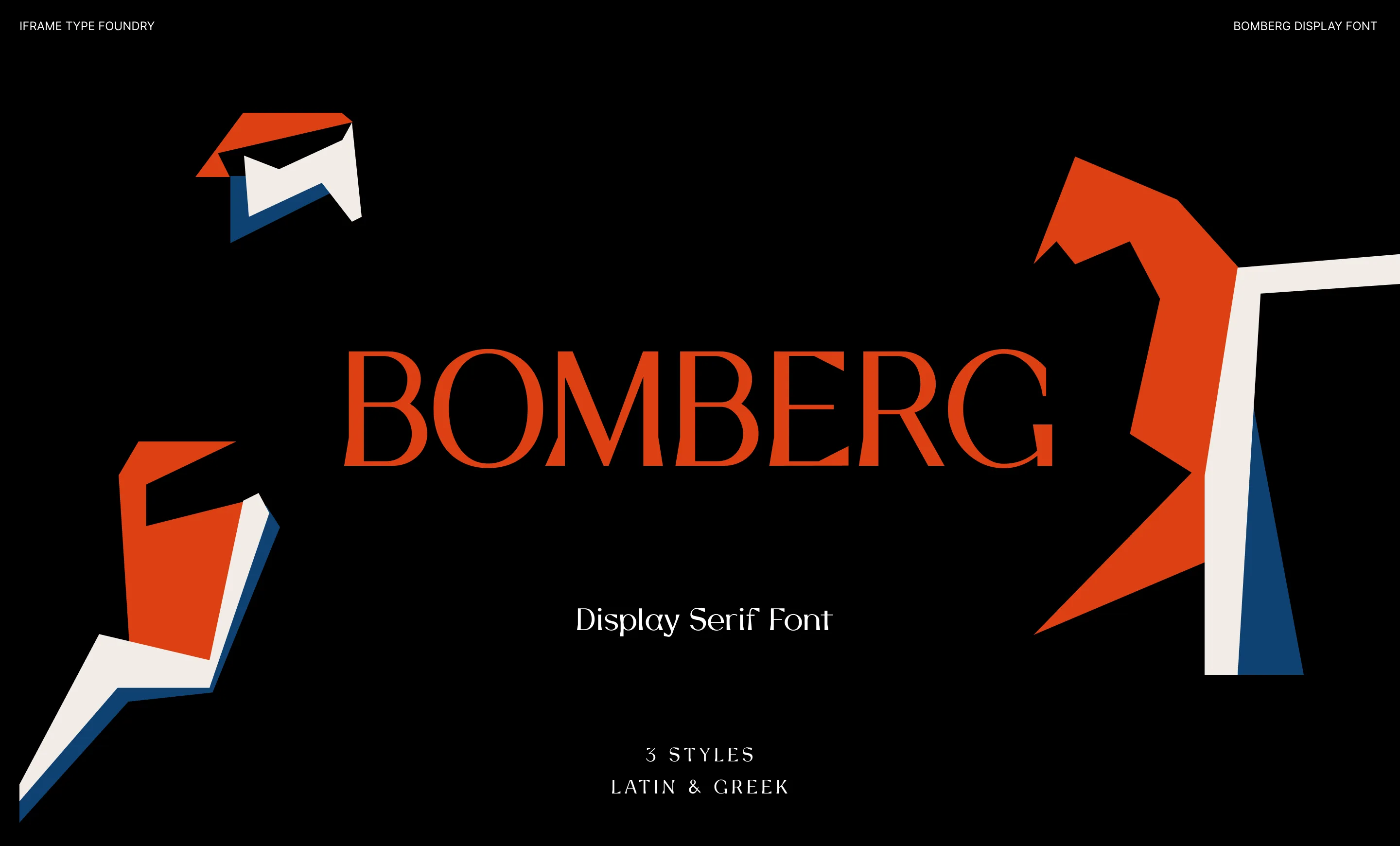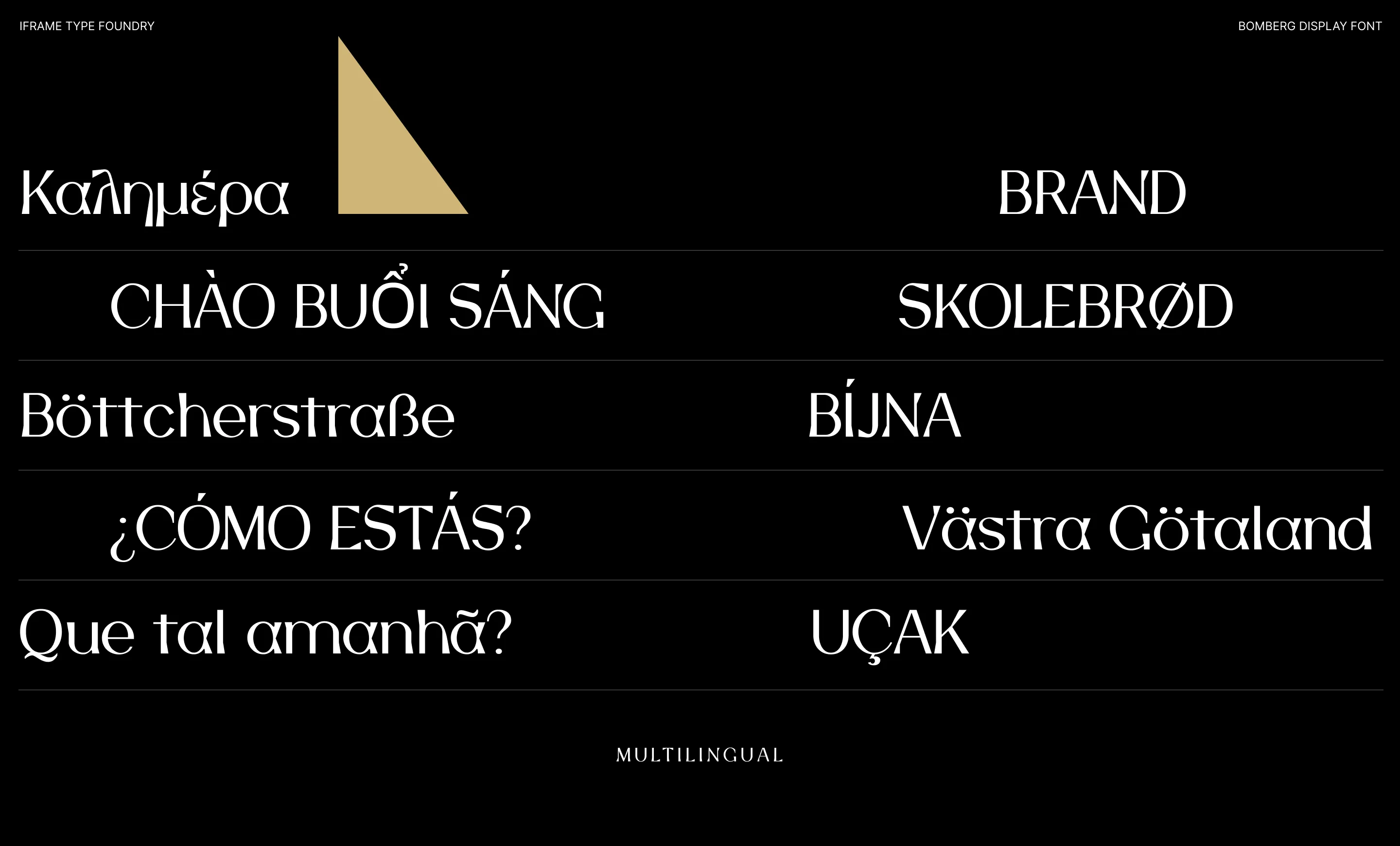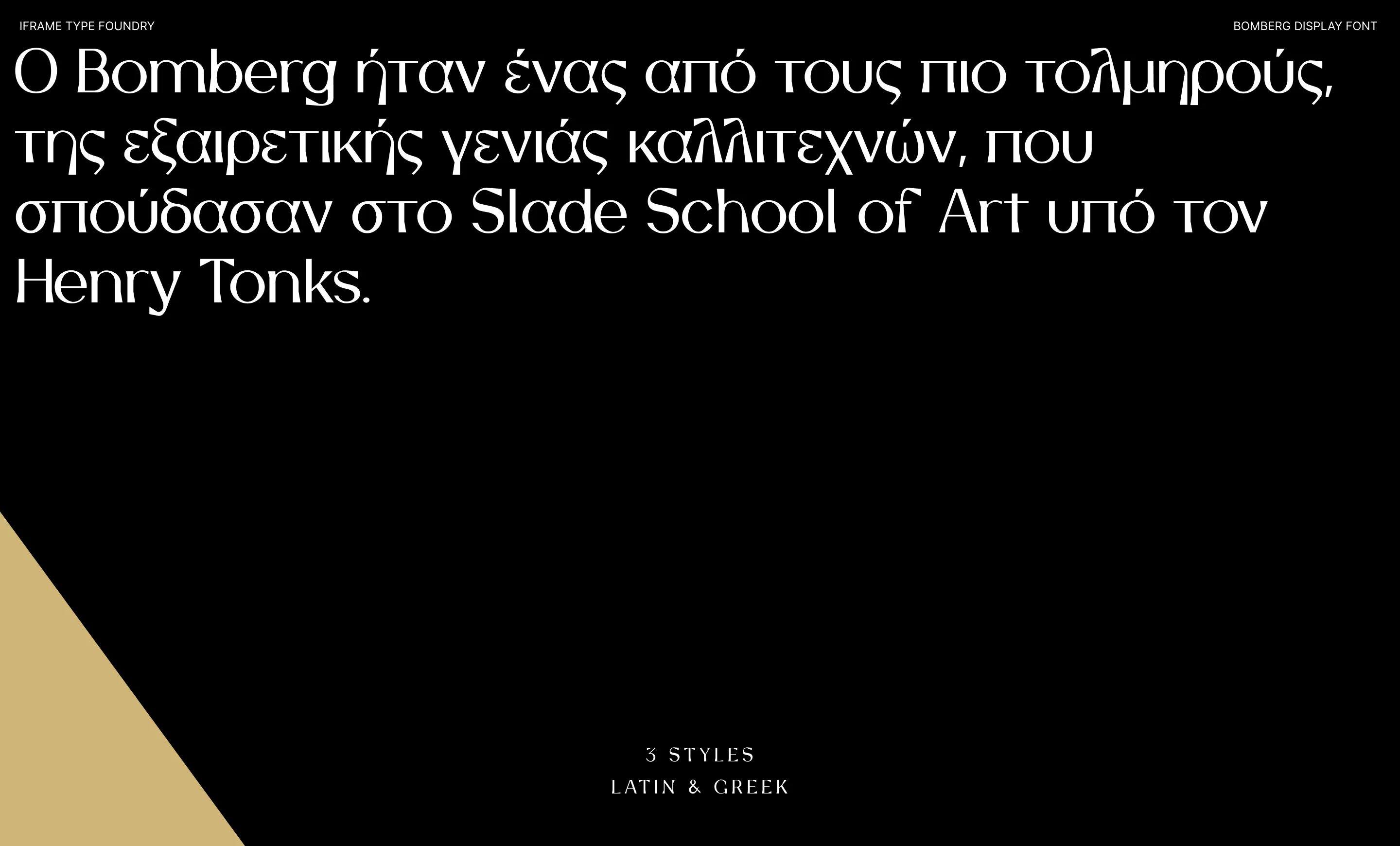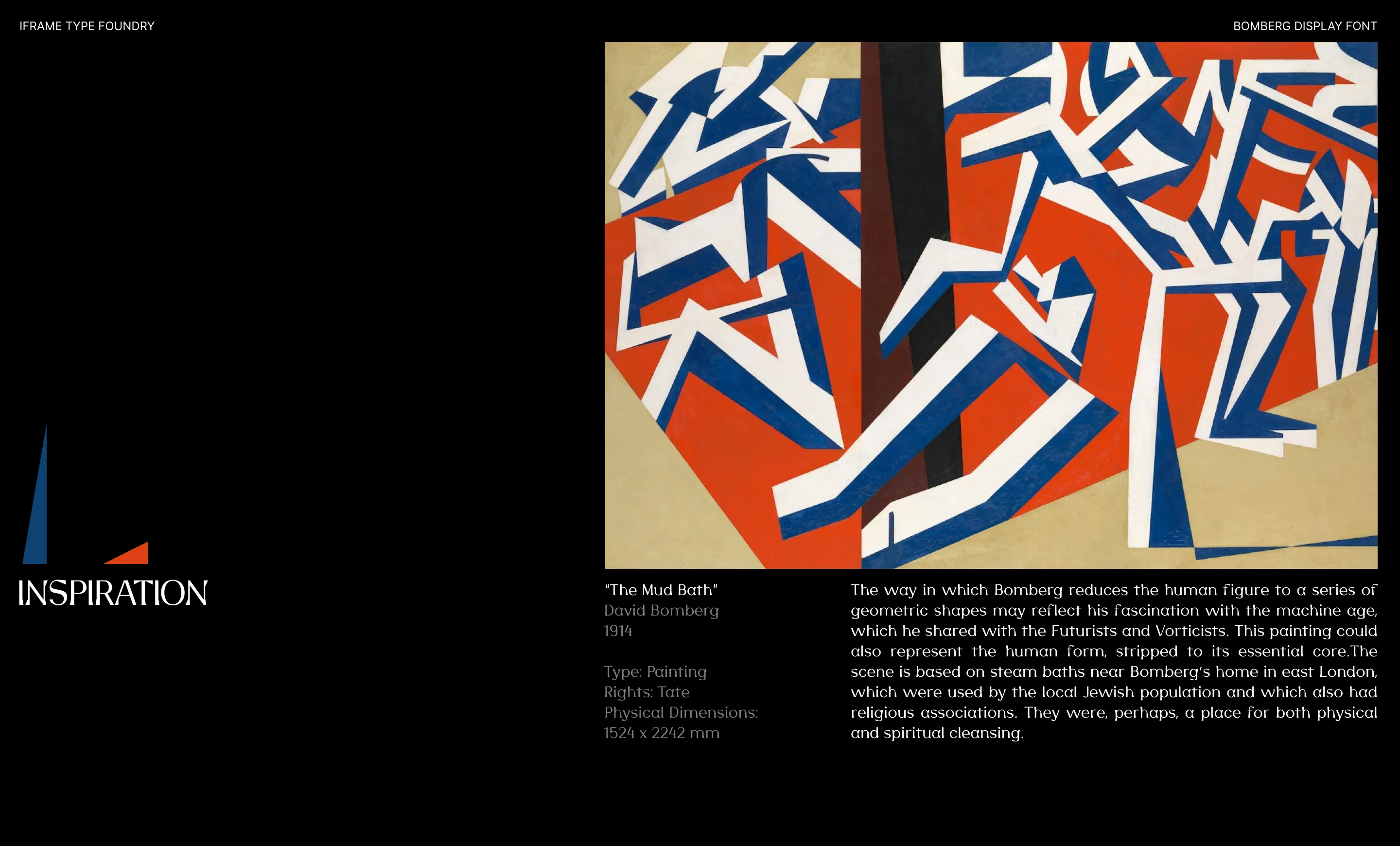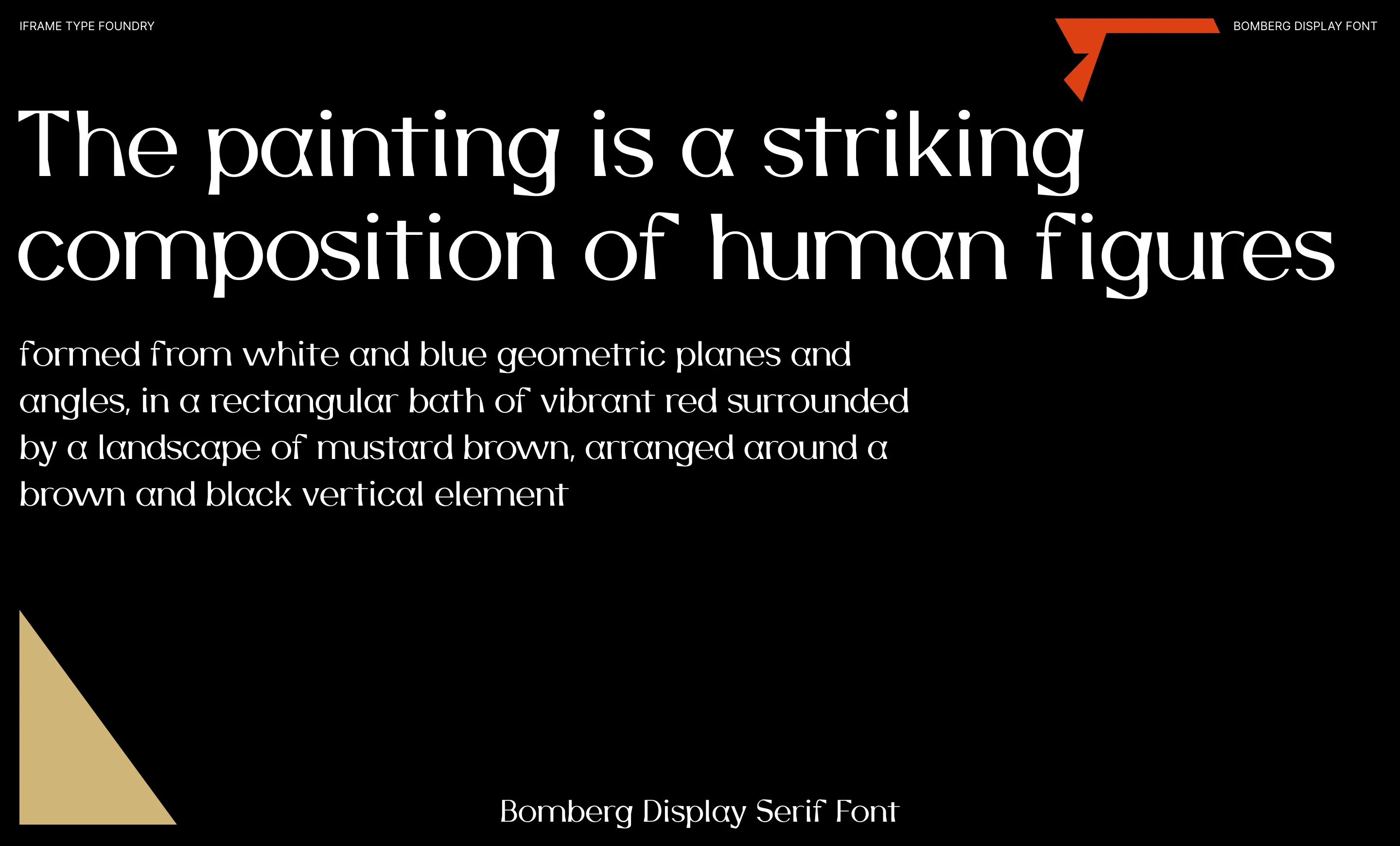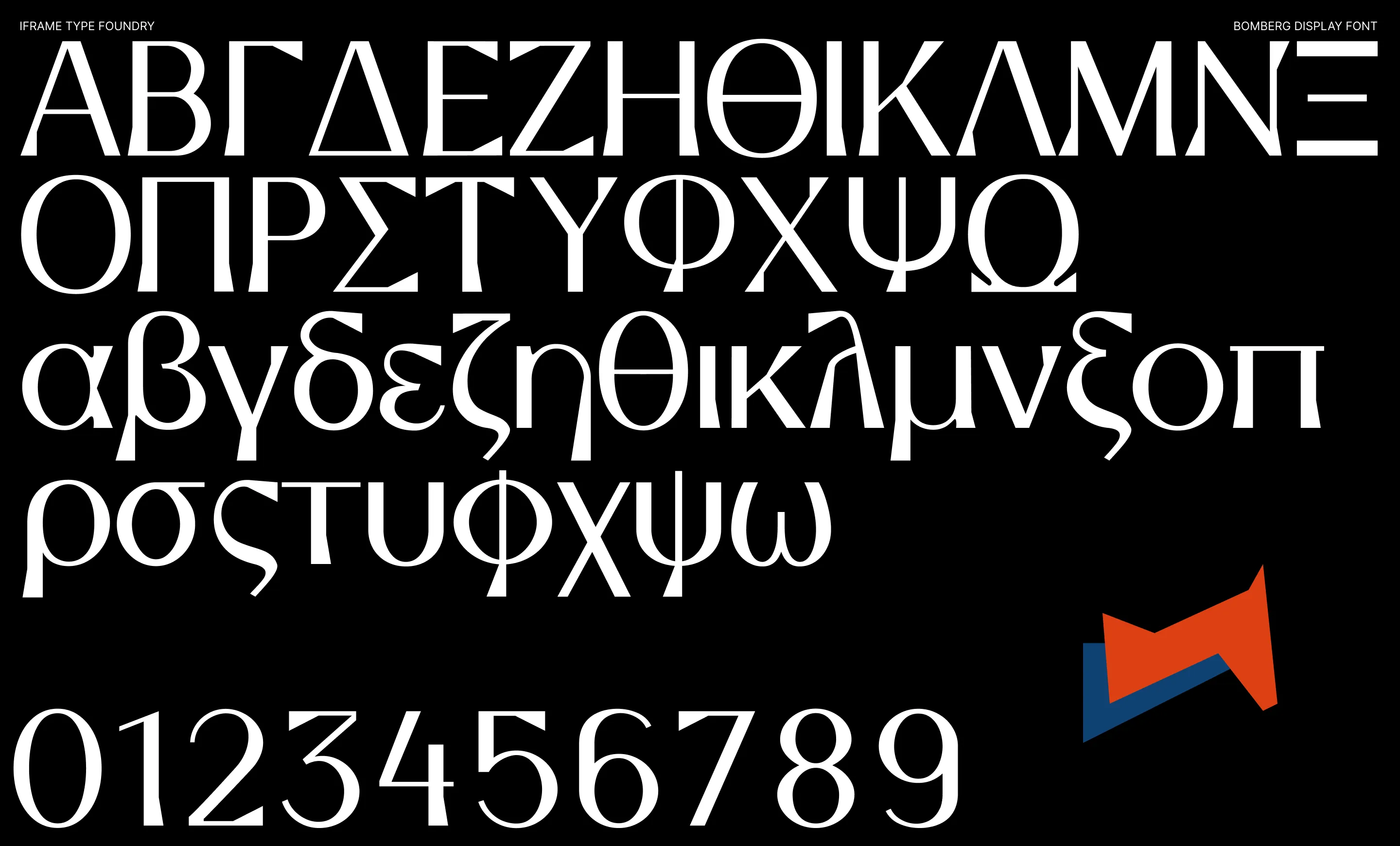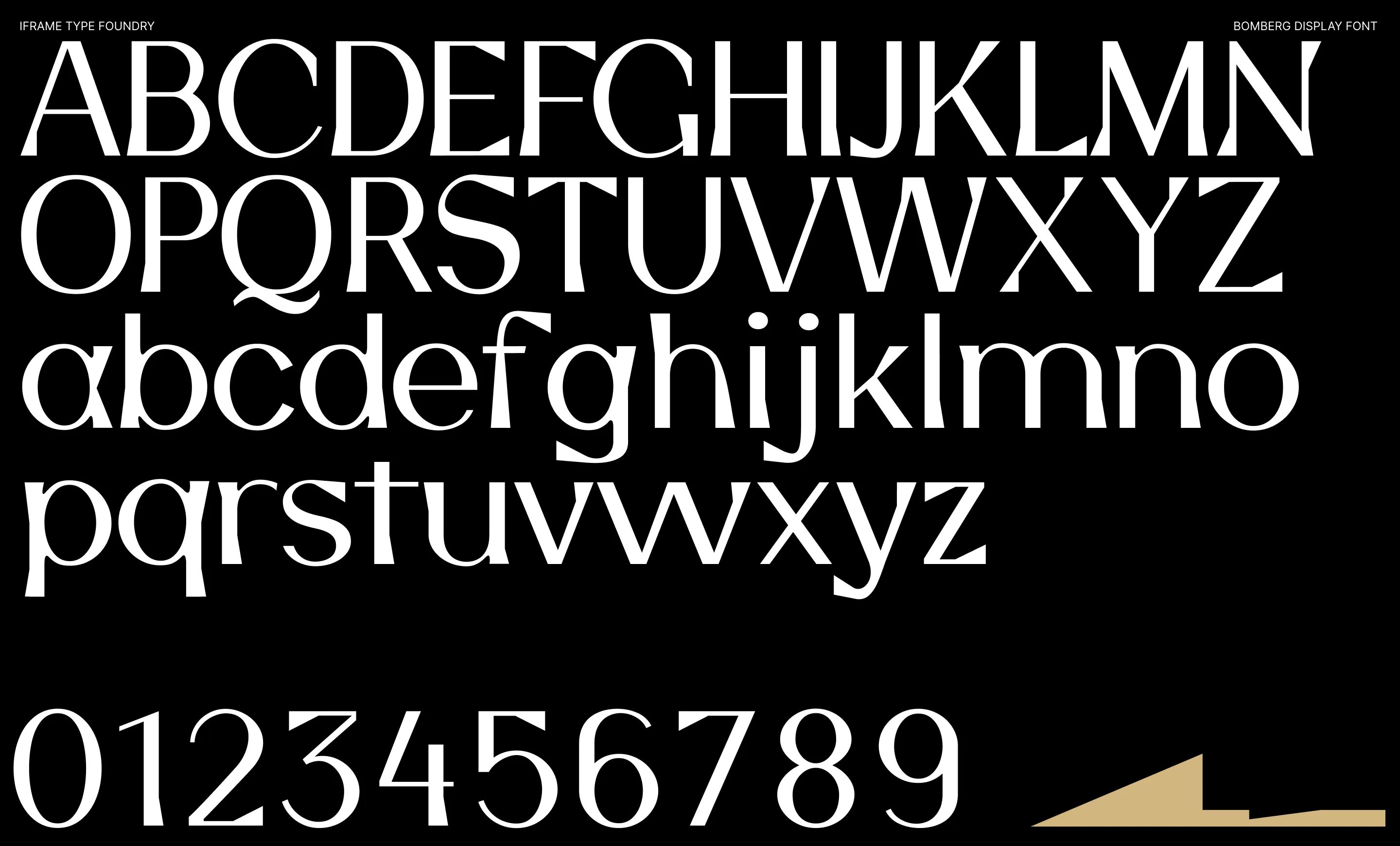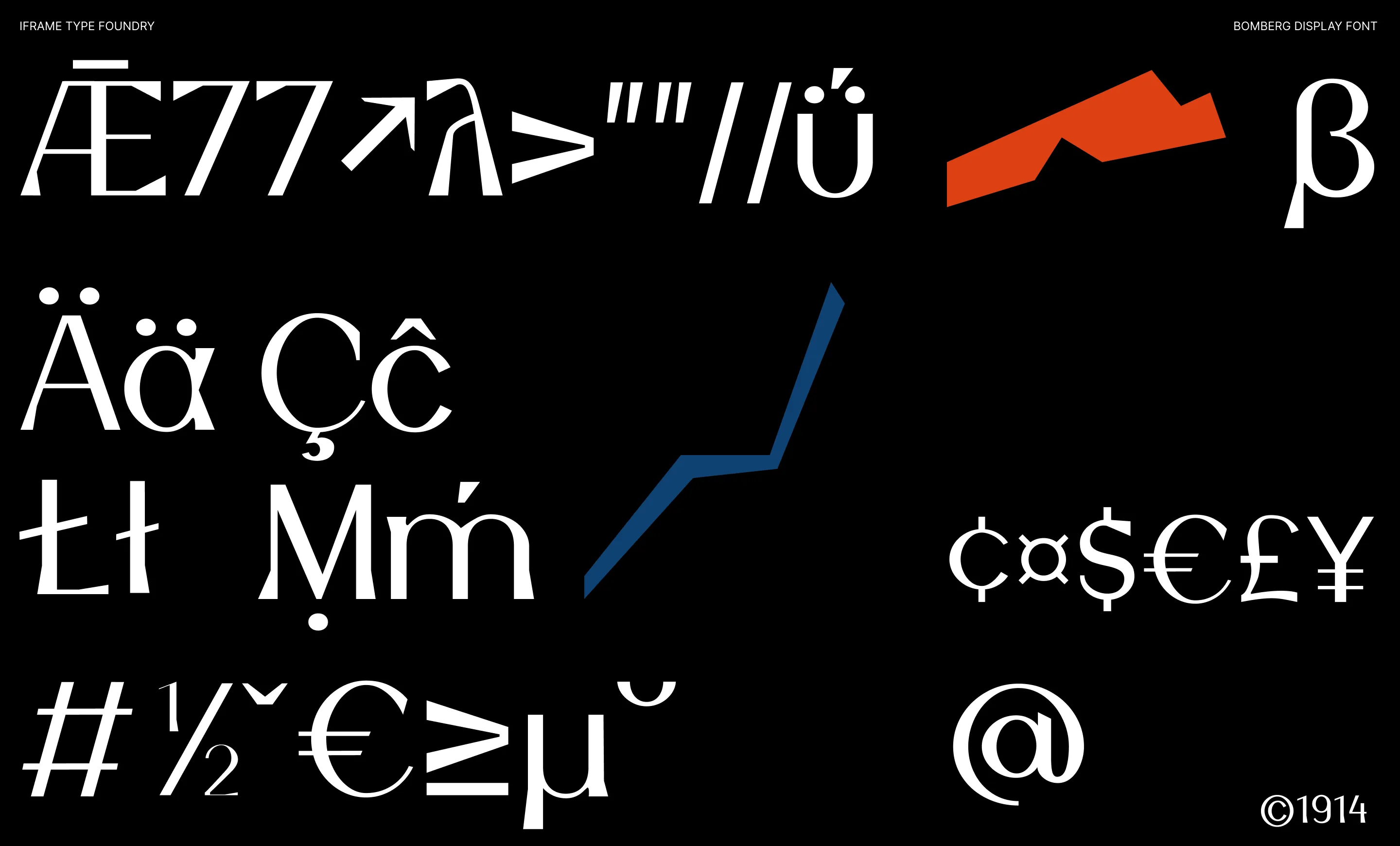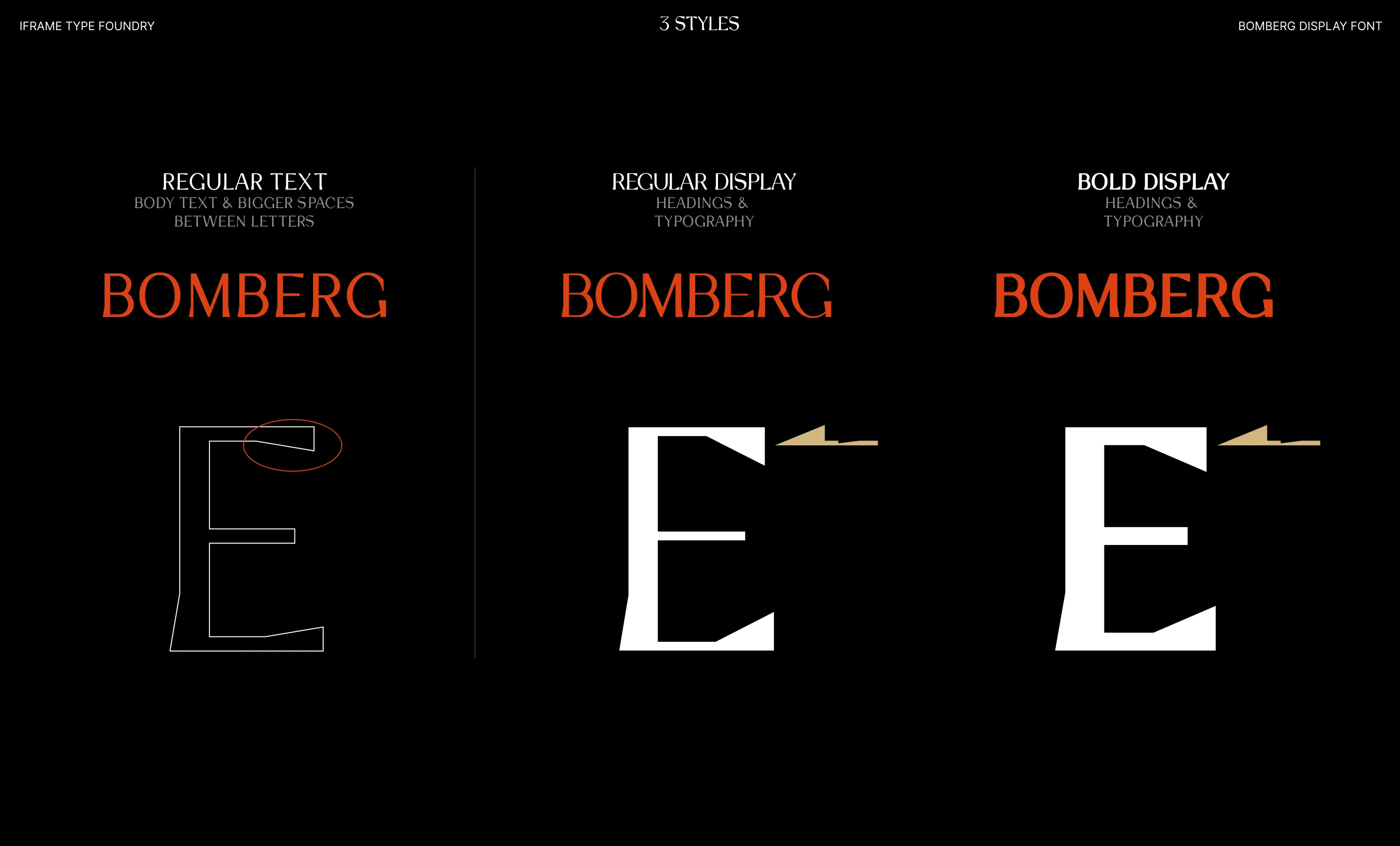
BOMBERG SERIF FONT
Inspired by David Bomberg’s “The Mud Bath”
Immerse yourself in the world of art and typography with Bomberg Serif Font by iframe type foundry. Inspired by the legendary David Bomberg’s iconic painting, “The Mud Bath.” Just as Bomberg’s brush strokes conveyed raw emotion and creativity, our font captures that very essence in each meticulously crafted letterform.
Unleash your creativity, tell your story, and make your designs a work of art with Bomberg Serif Font. Explore the intersection of artistry and typography today!
- Opentype Features
- 3 weights
- Upper / lower case, numbers, punctuation
- Supported Languages: Latin & Greek